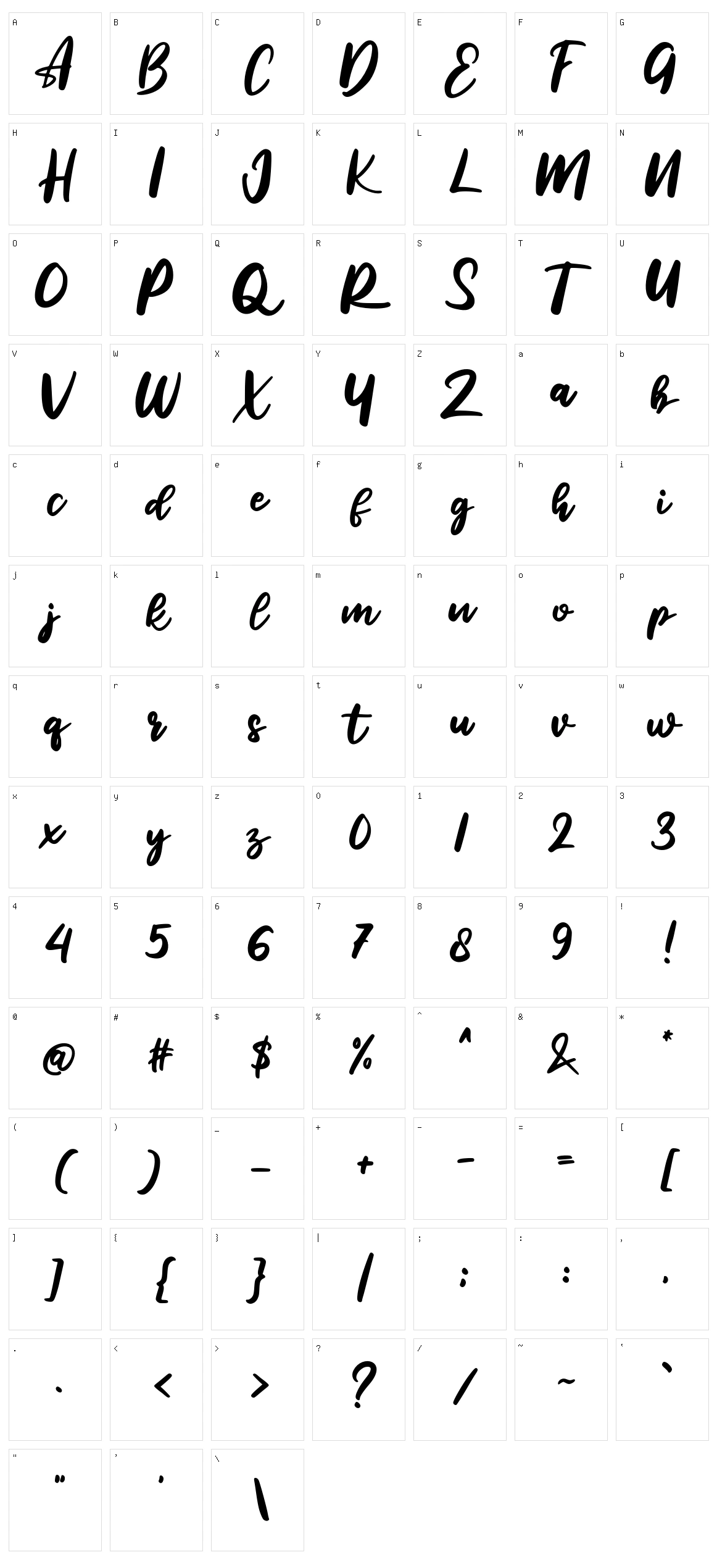
The free font Reliser is carefully designed by Vunira Design, showcasing a thoughtful balance of creativity and usability and falls under the Script font style. When you download the ZIP file, it contains only 164.11 KB of font files, making it lightweight and quick to download. Please review the license details below to understand permitted usage and distribution rights. If license information is not available, we recommend using this font for personal projects only or contacting the author directly for commercial usage permissions.